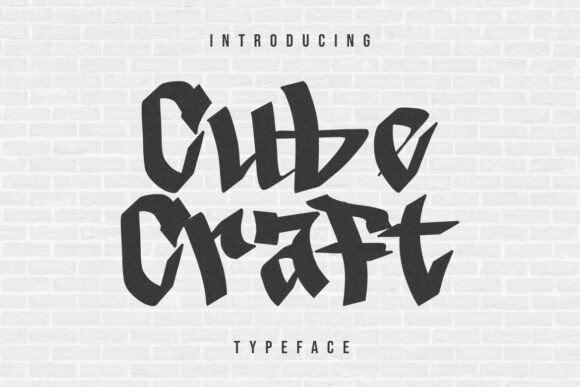
Cubecraft Font: The Ultimate Graffiti Font for Stunning Designs
In the world of typography, fonts play a crucial role in making designs stand out. One such font that has gained popularity among designers and artists is the Cubecraft Font. This graffiti font is known for its natural strokes, complemented by uppercase and lowercase letters, numbers, and punctuation. In this article, we’ll explore the features and benefits of Cubecraft Font and how it can be used to create stunning designs for various applications.
What is Cubecraft Font?
Cubecraft Font is a graffiti font designed to give your designs a unique and edgy look. It features natural strokes that give it a hand-drawn feel, making it perfect for creating eye-catching designs. The font comes with uppercase and lowercase letters, numbers, and punctuation, making it versatile for various design applications.
Key Features of Cubecraft Font
- Natural Strokes: The font features natural strokes that give it a hand-drawn feel, making it perfect for creating graffiti-style designs.
- Uppercase and Lowercase Letters: The font includes both uppercase and lowercase letters, allowing you to create designs with a mix of cases.
- Numbers and Punctuation: The font also includes numbers and punctuation marks, making it a complete set for designers.
- Graffiti Style: The font has a graffiti style that makes it perfect for creating edgy and bold designs.
Benefits of Using Cubecraft Font
Cubecraft Font offers several benefits to designers and artists. Some of the benefits include:
- Unique Designs: The font allows you to create unique and eye-catching designs that stand out from the crowd.
- Versatility: The font can be used for various design applications, including social media posts, brand types, posters, merchandise, packaging, headlines, and more.
- Easy to Read: Despite its graffiti style, the font is easy to read, making it perfect for designs that require a bold and edgy look.
- Customizable: The font can be customized to fit your design needs, allowing you to experiment with different styles and effects.
Use Cases for Cubecraft Font
Cubecraft Font can be used for various design applications, including:
- Social Media Posts: Use Cubecraft Font to create eye-catching social media posts that stand out from the crowd.
- Brand Types: The font can be used to create bold and edgy brand types that reflect your brand’s personality.
- Posters: Cubecraft Font is perfect for creating posters that require a bold and attention-grabbing font.
- Merchandise: The font can be used to create stunning merchandise, such as t-shirts, hats, and more.
- Packaging: Use Cubecraft Font to create eye-catching packaging that stands out on store shelves.
- Headlines: The font can be used to create bold and edgy headlines that grab attention.
Tips for Using Cubecraft Font
Here are some tips for using Cubecraft Font:
- Experiment with Colors: Cubecraft Font looks great with bold and bright colors. Experiment with different color combinations to create stunning designs.
- Use it with Images: The font looks great when used with images. Experiment with different image combinations to create stunning designs.
- Customize it: Don’t be afraid to customize the font to fit your design needs. Experiment with different styles and effects to create unique designs.
- Pair it with Other Fonts: Cubecraft Font can be paired with other fonts to create stunning designs. Experiment with different font combinations to find the perfect pairing.
Cubecraft Font is a versatile graffiti font that can be used for various design applications. Its natural strokes, uppercase and lowercase letters, numbers, and punctuation make it a complete set for designers. The font offers several benefits, including unique designs, versatility, and ease of reading. With its graffiti style, Cubecraft Font is perfect for creating edgy and bold designs that stand out from the crowd.
- What is Cubecraft Font? Cubecraft Font is a graffiti font with natural strokes, complemented by uppercase and lowercase letters, numbers, and punctuation.
- What are the benefits of using Cubecraft Font? The benefits of using Cubecraft Font include unique designs, versatility, ease of reading, and customizability.
- What are some use cases for Cubecraft Font? Cubecraft Font can be used for social media posts, brand types, posters, merchandise, packaging, headlines, and more.